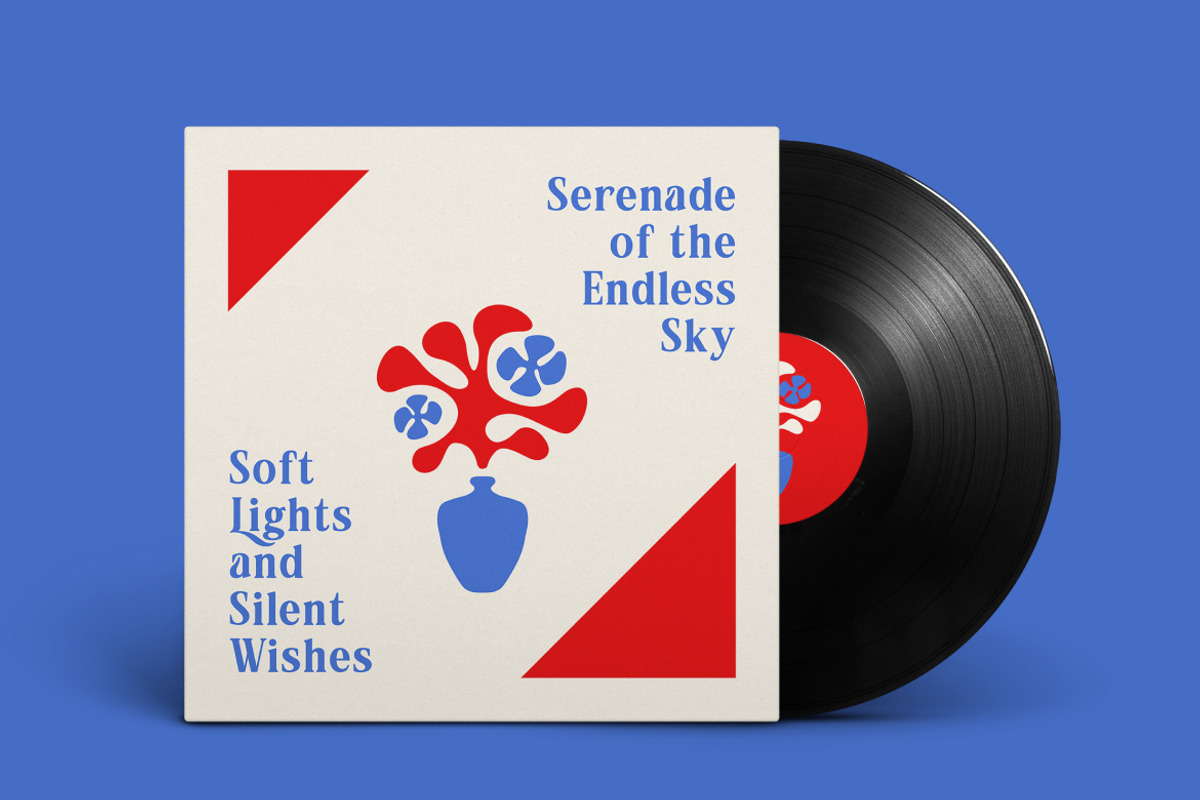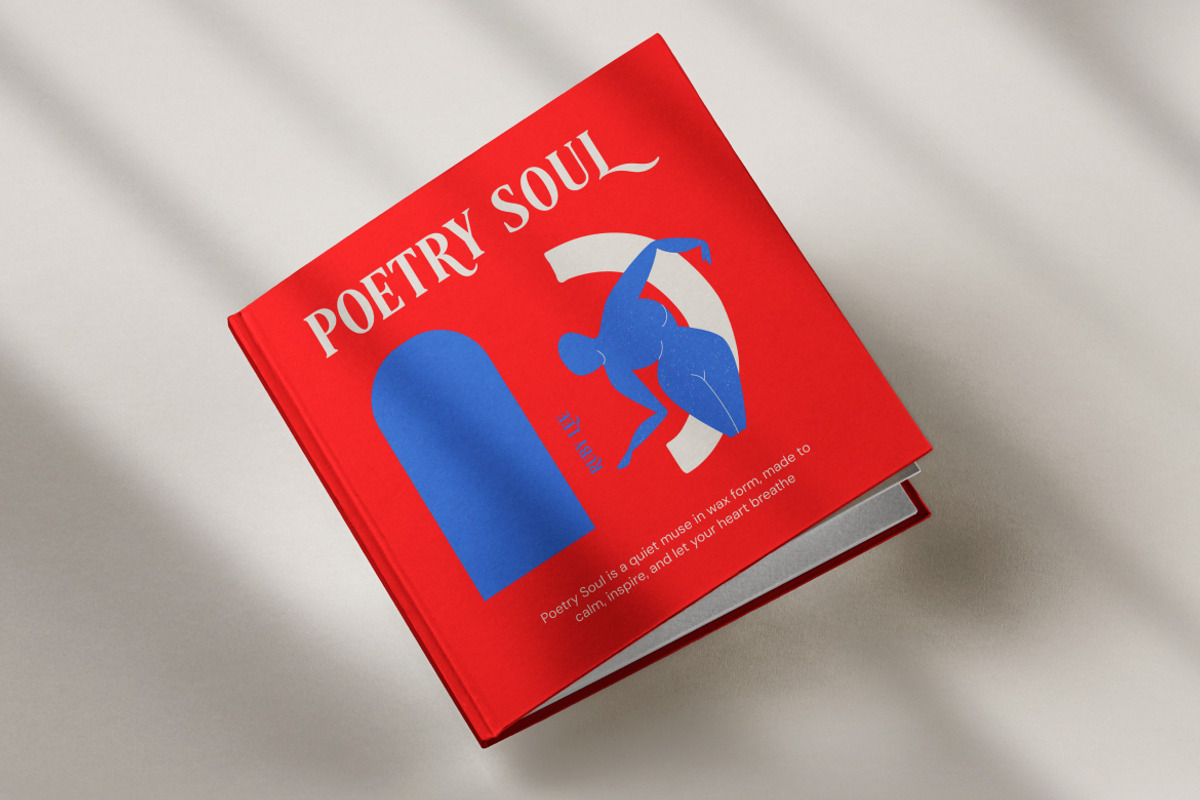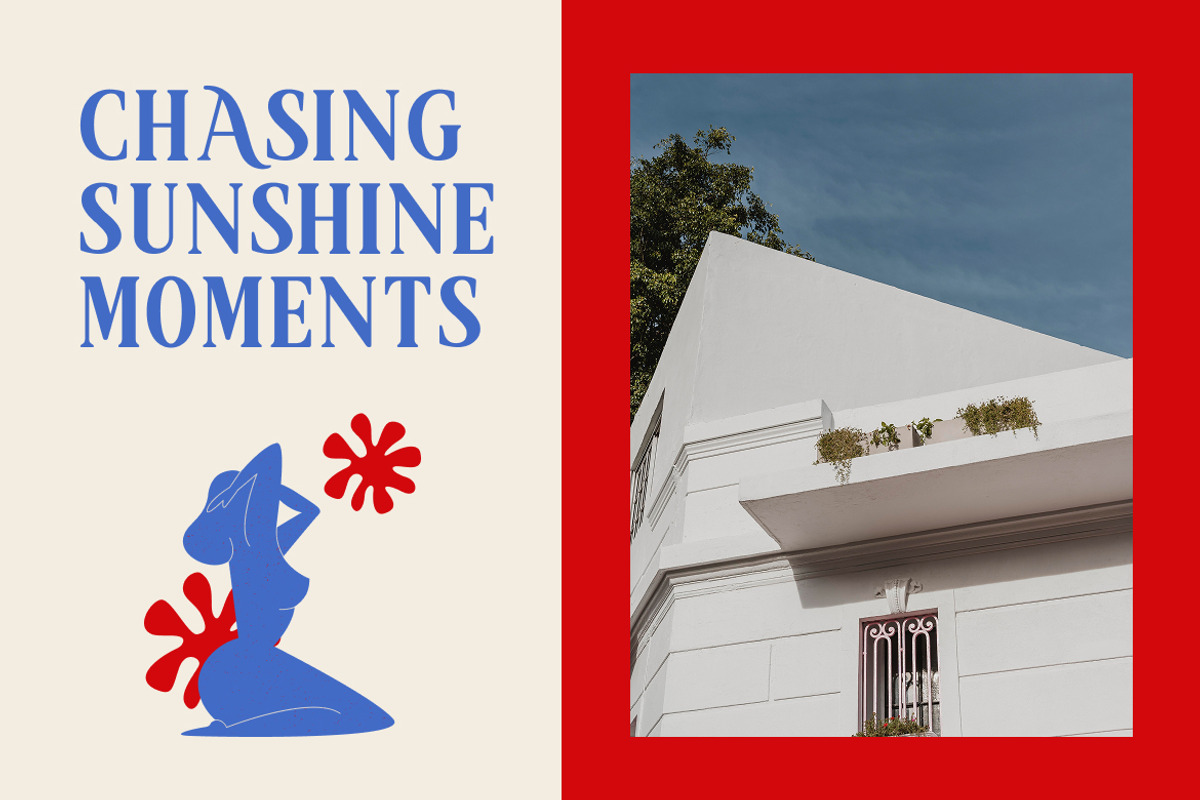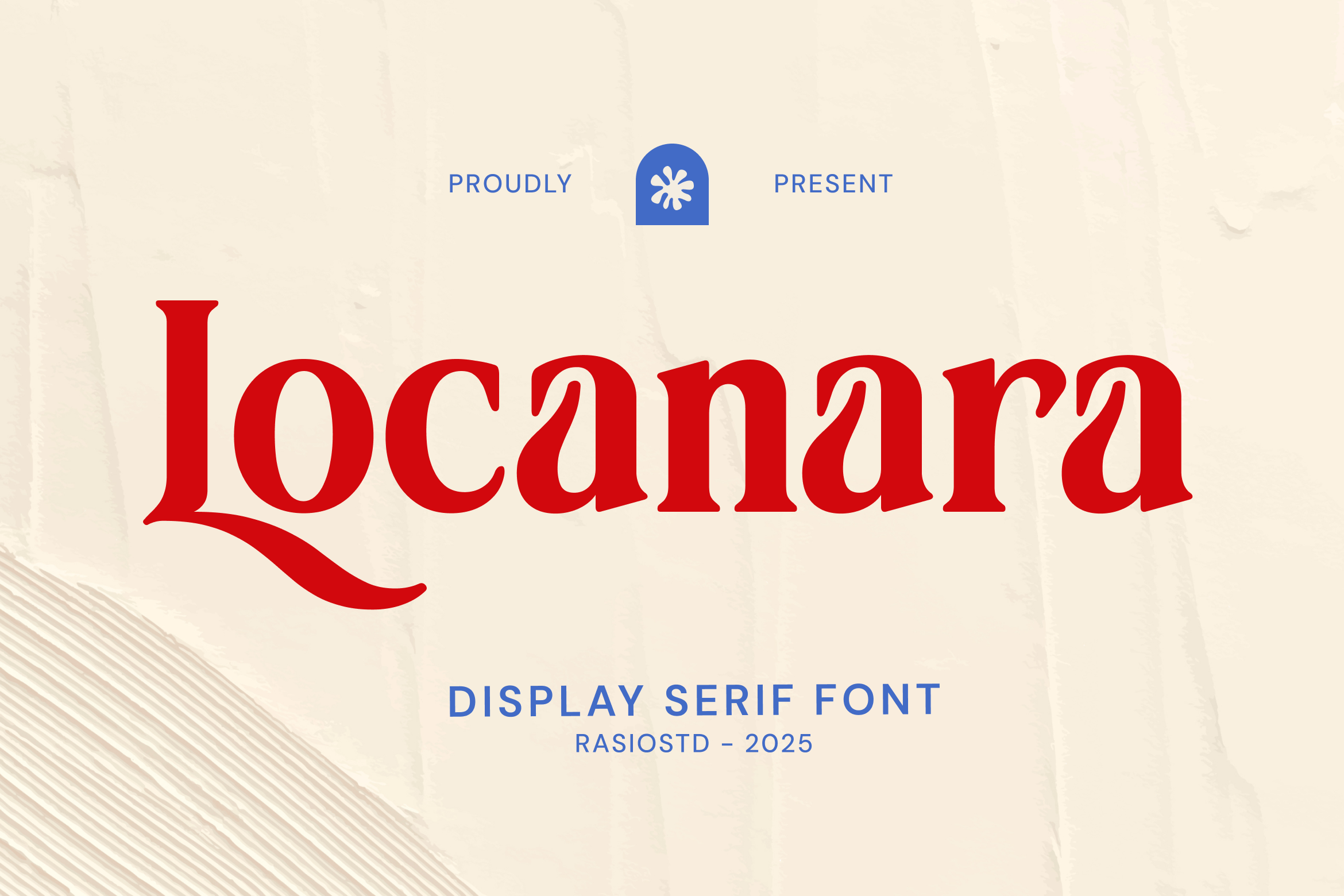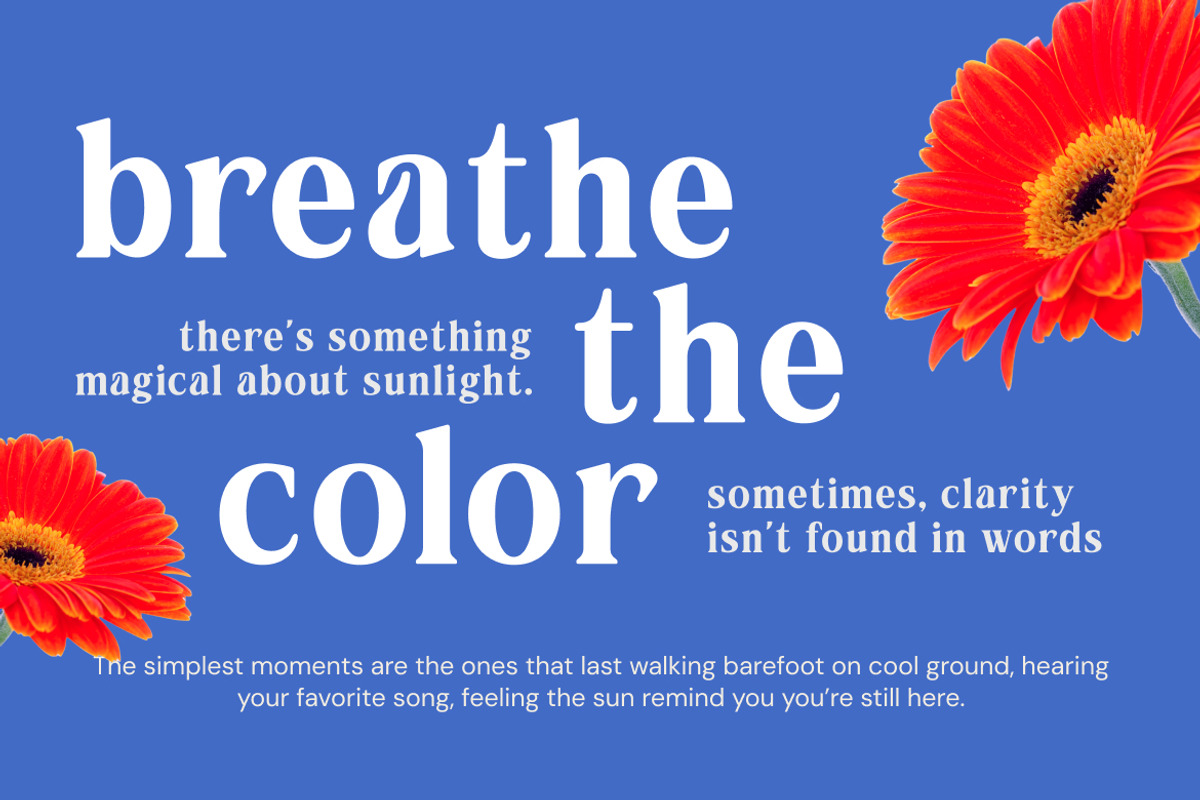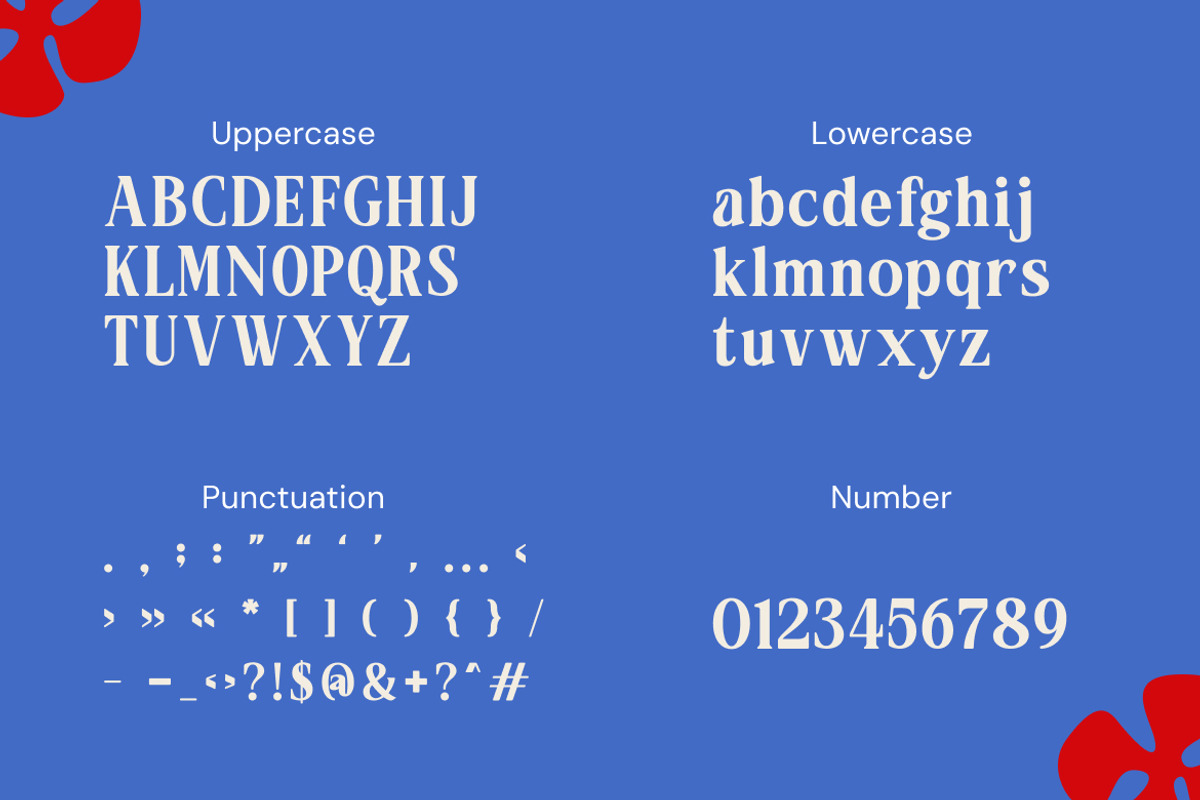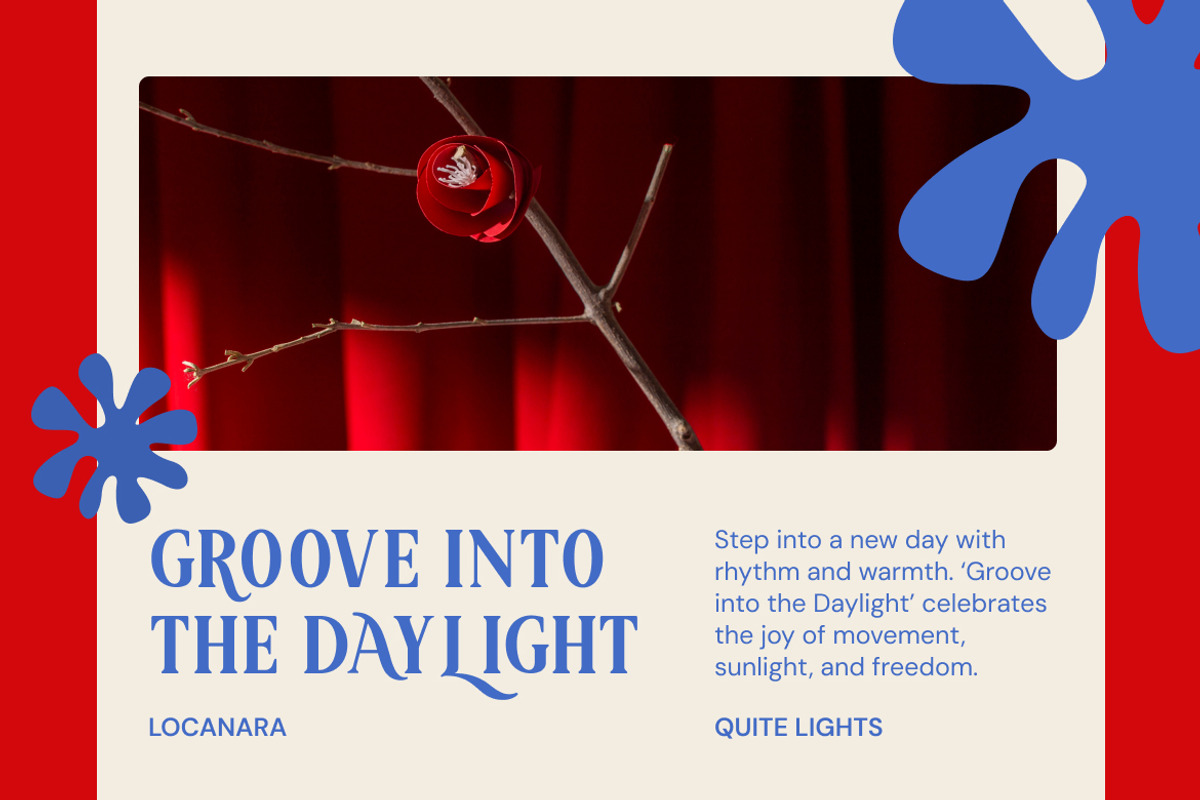
Locanara Display Serif Font
Locanara is a refined display serif font designed with graceful curves, distinctive letterforms, and a confident editorial presence. Featuring elegant serifs, smooth stroke transitions, and stylish character details, this typeface delivers a timeless yet contemporary aesthetic.The font includes uppercase, lowercase, numerals, and punctuation, making it versatile for creative and professional projects.
Locanara is ideal for fashion branding, editorial magazines, luxury packaging, creative agencies, boutique logos, book covers, posters, and high-end marketing materials. Its expressive serif structure makes it perfect for projects that require elegance, personality, and visual sophistication while maintaining readability in large display settings.
- Expressive display serif design with refined, sculpted letterforms
- Elegant high-contrast strokes that create a sophisticated visual rhythm
- Gracefully curved terminals and distinctive serif details for character
- Balanced proportions that enhance editorial presence and headline impact
- Carefully spaced letterforms optimized for striking display compositions
- Luxury and boutique brand identity systems
- Editorial magazines and high-fashion layouts
- Elegant book covers and sophisticated publishing design
- Premium product packaging and cosmetic labels
- Social media visuals and marketing materials with refined character
Locanara transform your designs with bold, elegant expression